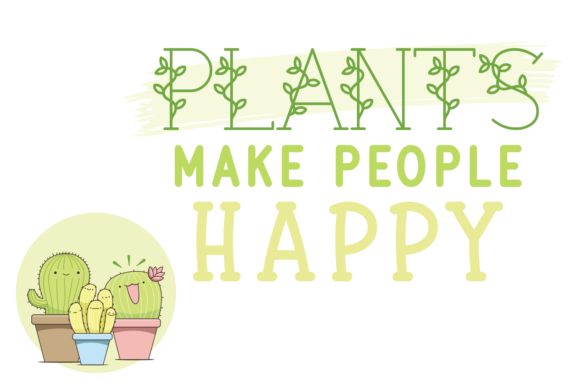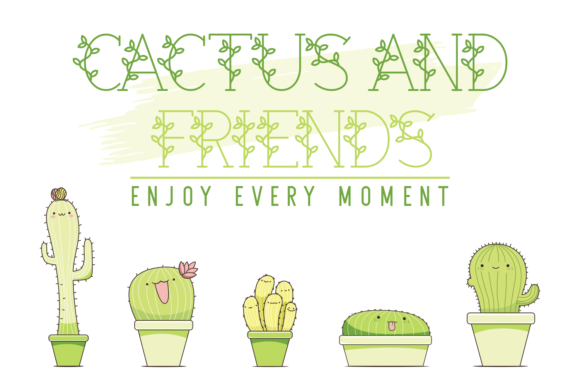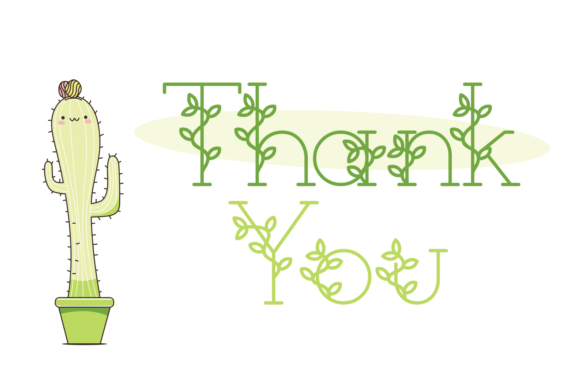
The Ultimate Design Game-Changer: Green Plants Font
I’ll never forget the design project that had me stuck in a creative rut. I was working on a branding campaign for an eco-friendly product, and I just couldn’t find the right font to capture the essence of the brand. That was until I stumbled upon the Green Plants font. It was like a breath of fresh air – the perfect blend of elegance and playfulness that instantly elevated my design. In this article, I’ll share my experience with this beautiful decorative font, its features, and how to make the most of it in your designs.
An Honest Review of Green Plants Font
- ✨ Unique and eye-catching design that’s perfect for making a statement
- ✅ Masterfully crafted to bring creative ideas to life
- 💡 Highly versatile and suitable for various design projects, from branding to packaging
- 🎨 Beautifully designed to add a touch of elegance and sophistication to any design
While Green Plants font is an amazing design tool, there are a few things to keep in mind:
- 🤔 Some characters may require manual kerning for optimal spacing
- ⚠️ Limited use of uppercase letters, but the font makes up for it with stylish alternates
A Practical Guide to Using Green Plants Font
- Experiment with OpenType features, such as glyphs and stylistic alternates, to add visual interest to your design
- Take advantage of OpenType features, such as ligatures and stylistic sets, to add depth and personality to your design
The Backstory of Green Plants Font
The Green Plants font was designed by a team of creative typographers who wanted to create a unique and eye-catching font that would bring a touch of elegance to any design. Inspired by the beauty of nature, they crafted a font that’s both playful and sophisticated. The result is a font that’s perfect for designers, crafters, and creative hobbyists who want to add a touch of personality to their designs.
| What is the Green Plants font best used for? | The Green Plants font is perfect for a variety of design projects, including branding, packaging, social media graphics, and more. |
| Is the Green Plants font suitable for body text? | While the Green Plants font is beautiful, it’s best used for headlines and titles. For body text, a more traditional font would be more suitable. |